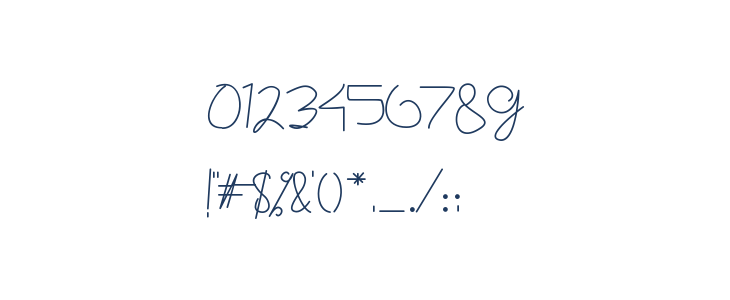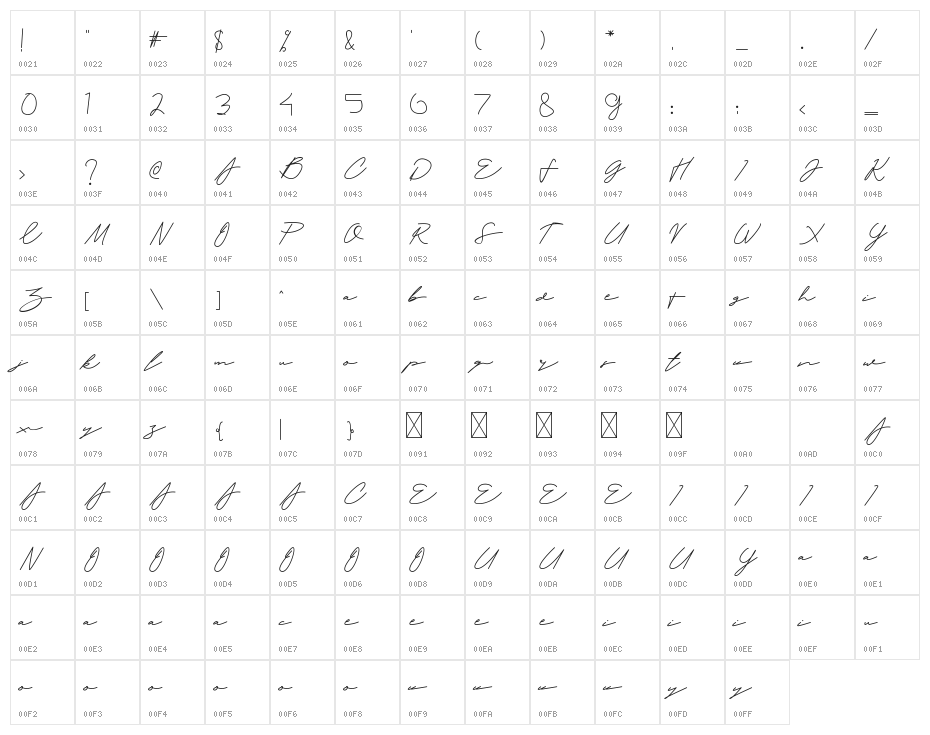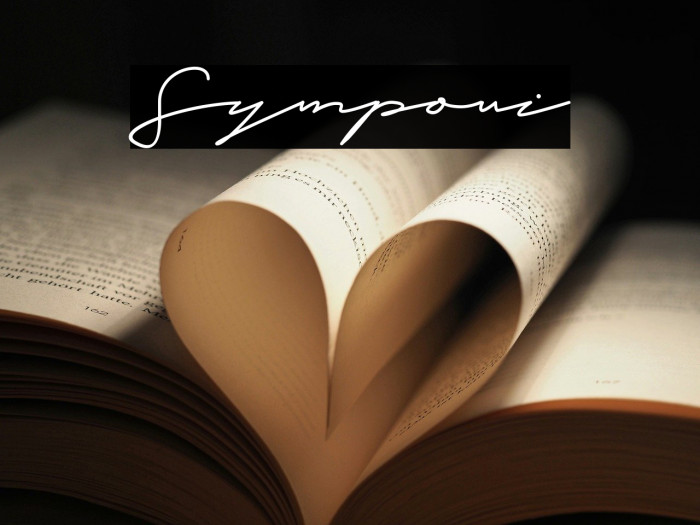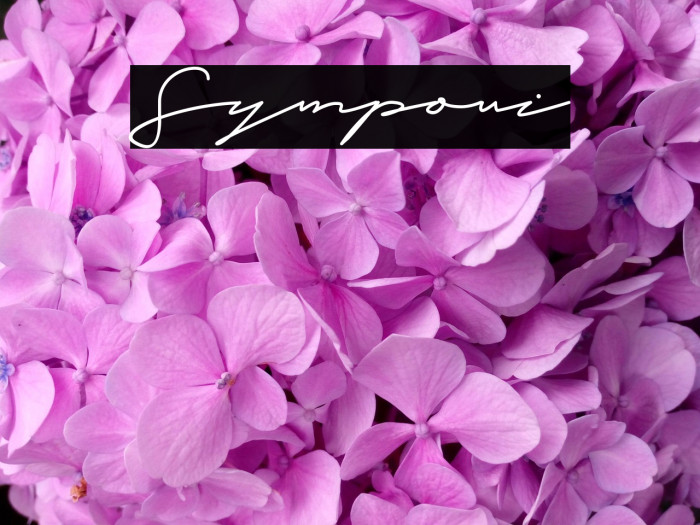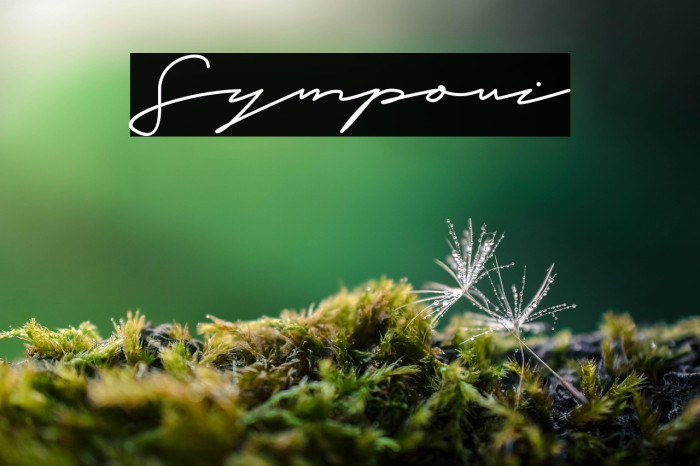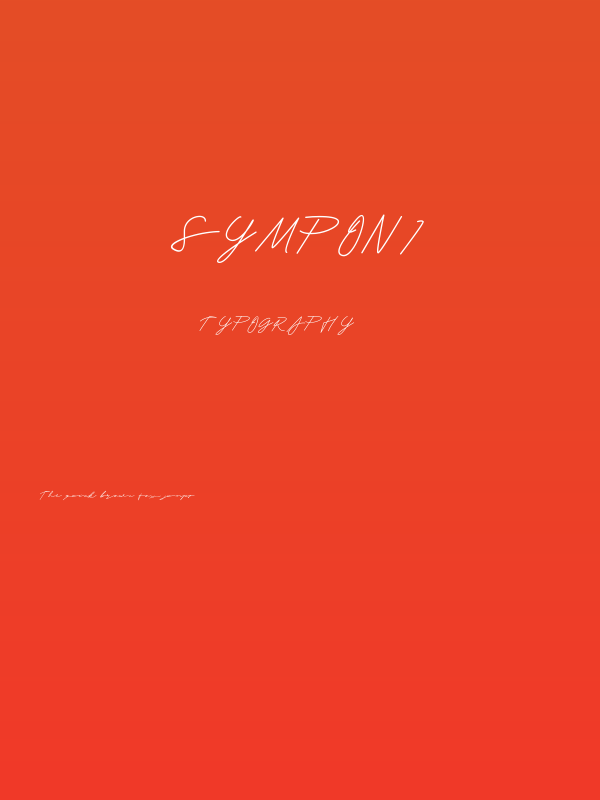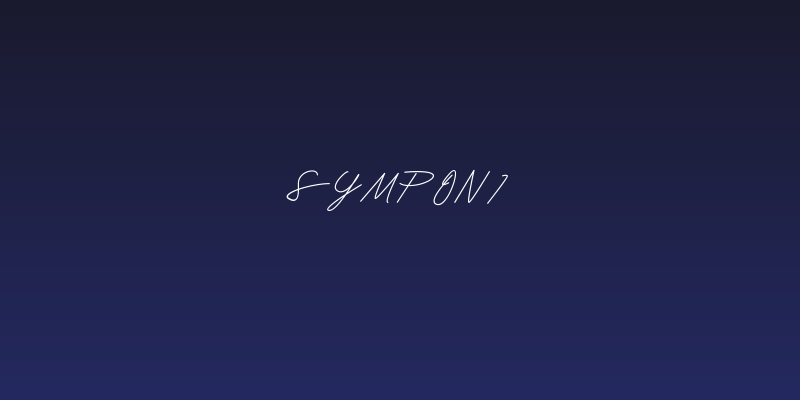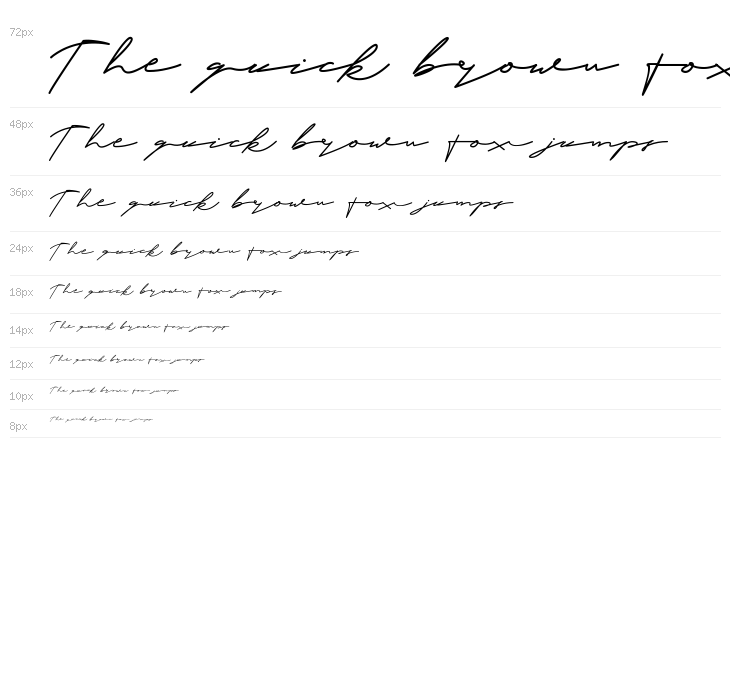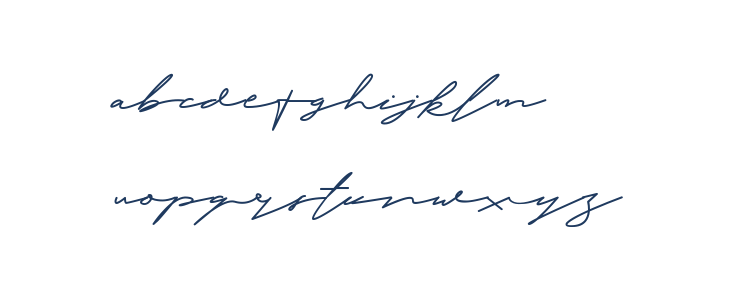
Symponi Font
Symponi Description
This font exudes a sense of elegance and fluidity, characterized by its cursive, handwritten style. The letters are connected with smooth, flowing lines that mimic the natural motion of handwriting. The uppercase letters are slightly more elaborate, with graceful loops and curves, while the lowercase letters maintain a consistent, flowing form. The numerals and special characters complement the alphabet with their own unique flair, maintaining the overall aesthetic. The font's thin strokes and delicate appearance make it ideal for projects that require a personal, sophisticated touch.
| Overall Style | Elegant, Handwritten |
| Use Case | Logos, Invitations, Personal Correspondence |
| Proposed Projects | Ideal for wedding invitations, personal letters, branding, and elegant logo designs. |